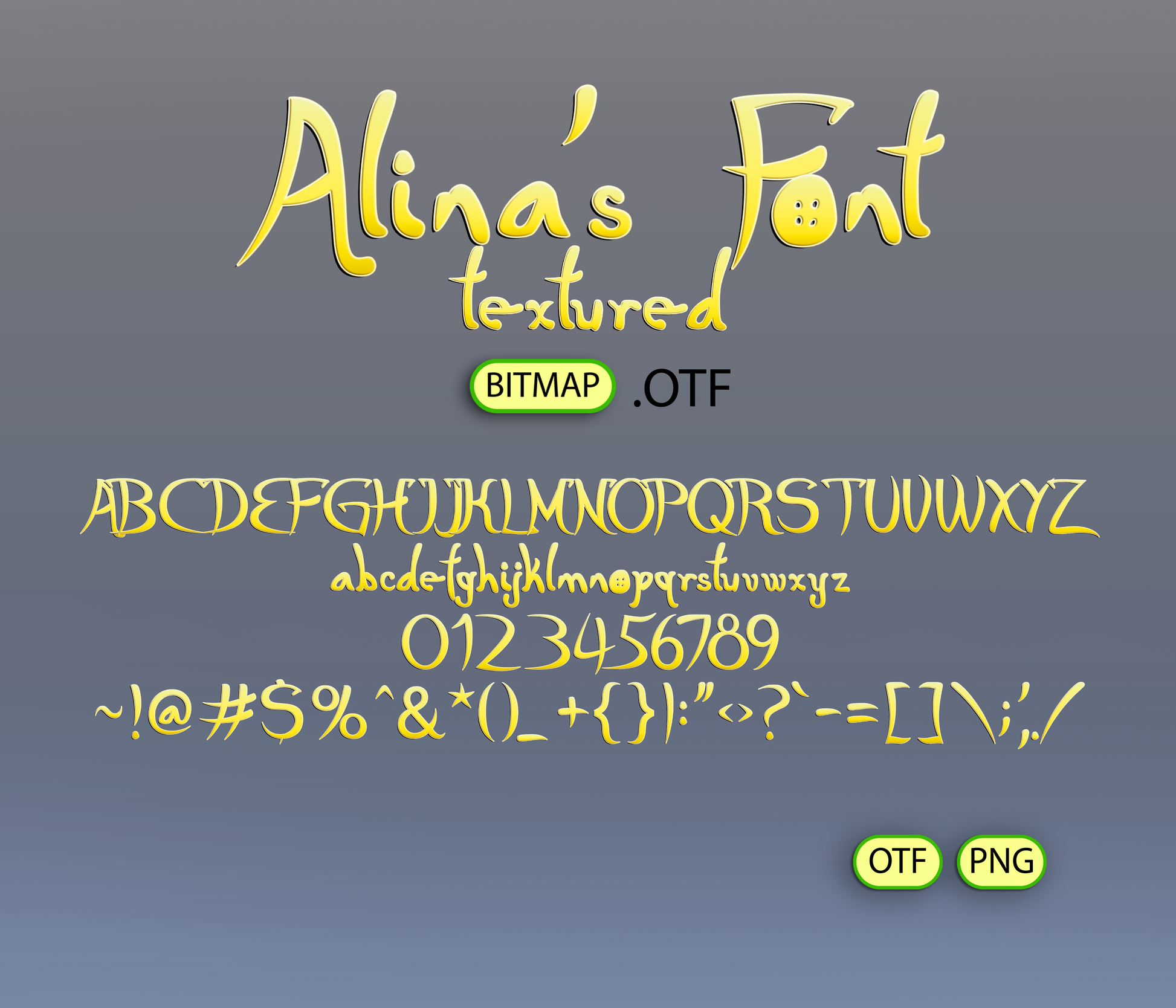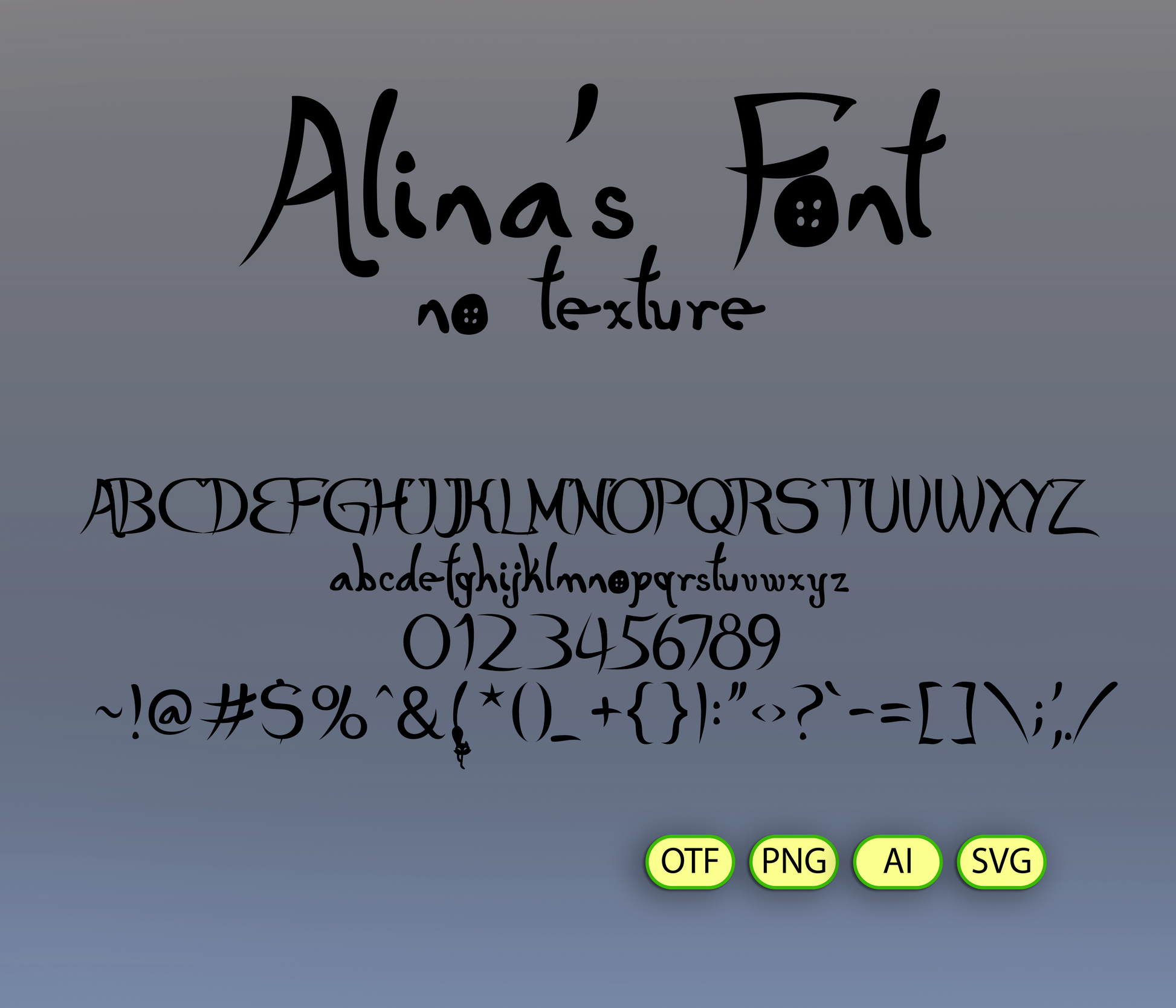
Otherworldly Adventure Font Textured
Otherworldly Adventure Font
Step into a mysterious and enchanting realm with our Otherworldly Adventure font. This unique typeface captures the essence of a young explorer's journey through parallel worlds, blending whimsy with a touch of eerie charm. Perfect for projects that aim to evoke a sense of childhood curiosity mixed with subtle supernatural elements.
Our Otherworldly Adventure font features a hand-crafted look with slightly crooked, playful characters that hint at the blurred lines between reality and fantasy. Ideal for:
The Otherworldly Adventure font includes both textured and non-textured variants, ensuring compatibility with all design software, including popular online design platforms. This feature allows for easy incorporation into designs for users of all skill levels.